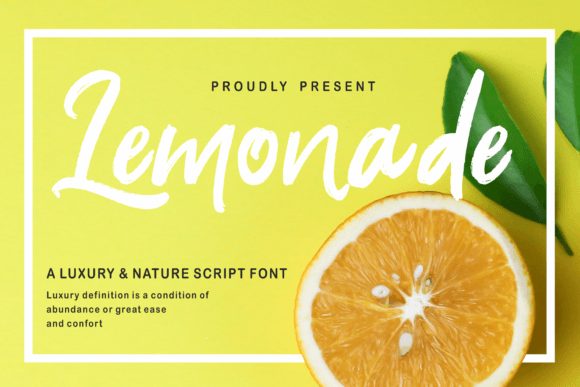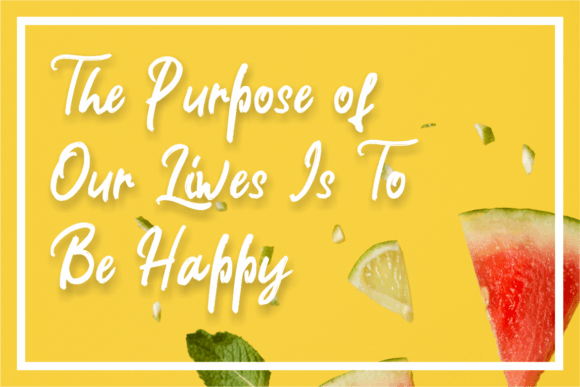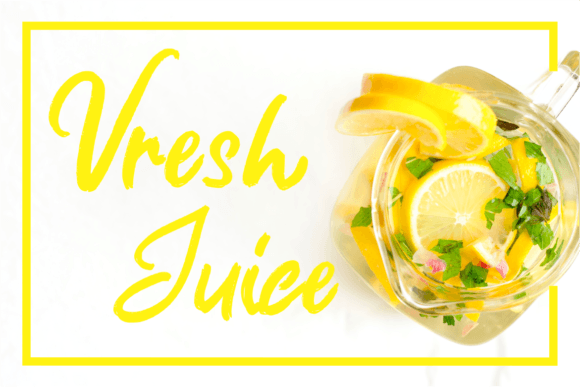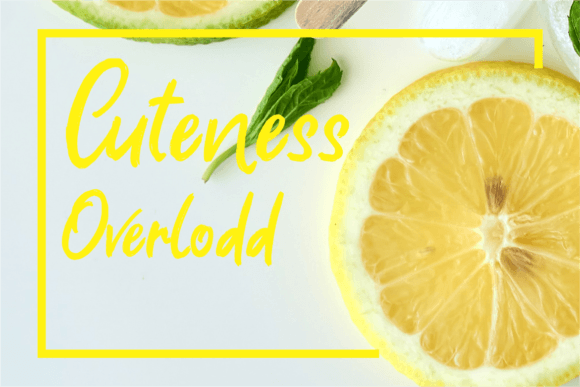
About Lemonade Font
Introducing Lemonade, a quirky handwritten font designed to infuse a sense of playfulness into your creative projects. This versatile font is perfect for a variety of applications, including posters, quotes, merchandise, logos, product packaging, brochures, social media graphics, and more.
Lemonade’s quirky and handwritten style adds character and charm to your text, making it a great choice for projects that aim to stand out with a unique and lighthearted vibe. Whether you’re creating eye-catching posters, designing memorable quotes, or crafting a playful logo, Lemonade is crafted to bring a dose of personality to your text.
The versatility of Lemonade allows it to adapt seamlessly to different design contexts. Its quirky charm can enhance the visual appeal of merchandise, add a fun touch to product packaging, or make your social media graphics more engaging and memorable.
Imagine Lemonade adding a playful and quirky twist to your brand identity, making your posters pop with personality, or infusing a sense of fun into your merchandise. Whether used in digital or print formats, Lemonade is designed to be a lively and versatile font that adds a touch of whimsy to your creative endeavors.
In essence, Lemonade is more than just a font; it’s a creative tool that brings a quirky and handwritten flair to your designs. Let it be the playful and distinctive element that elevates your posters, quotes, merchandise, and various creative projects, making them uniquely delightful.